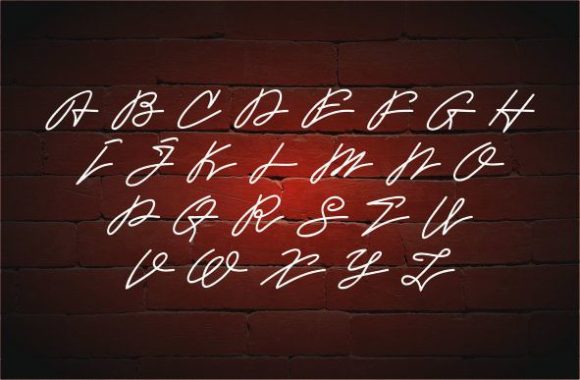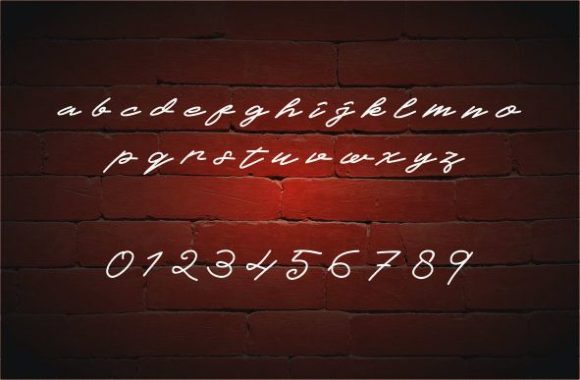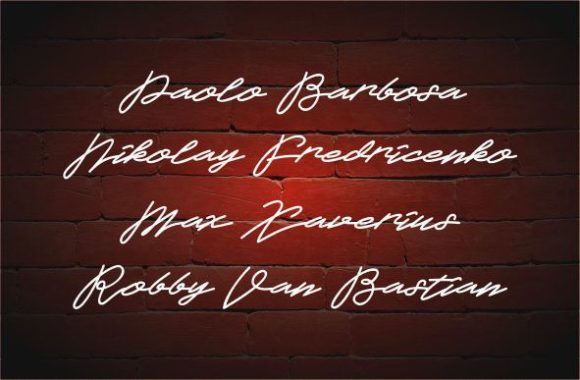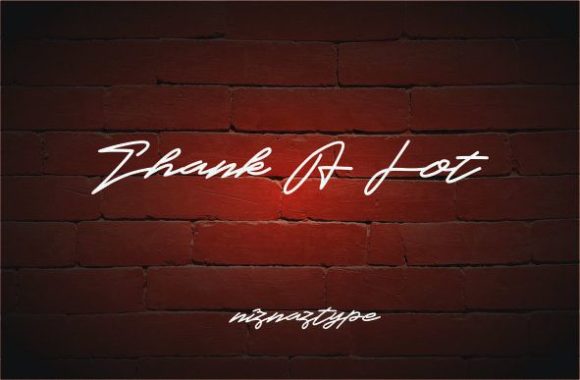
Juliaguz Font
About Juliaguz Font
Juliaguz is an incredibly distinct and flowing handwritten font, described by an elegant touch. Fall in love with its timeless style and use it to create spectacular designs!